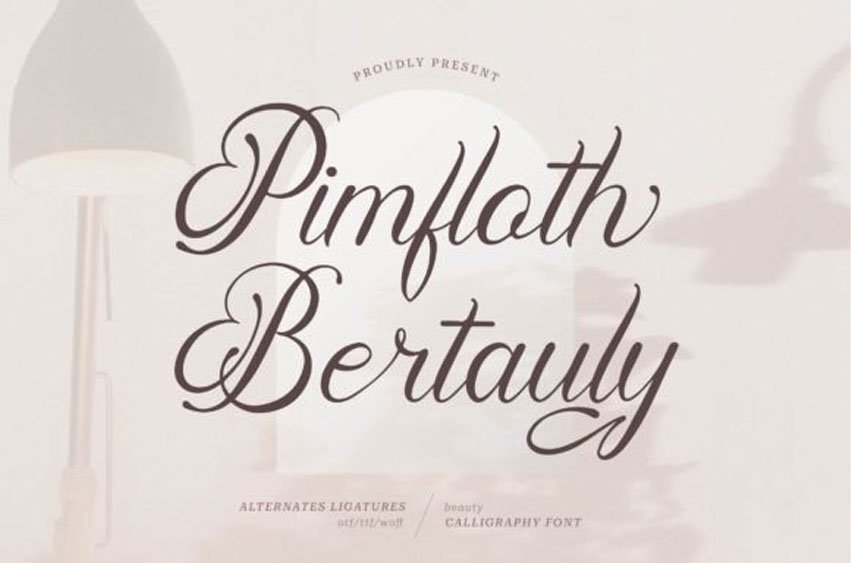
Pimfloth Bartauly Font is a dainty and elegant script font, suitable for any projects such as: logos, branding projects, homeware designs, product packaging, mugs, quotes, posters, shopping bags, t-shirts, book covers, name card, invitation cards, greeting cards, label, photography, watermark, special events, and all your other lovely projects that need a beautiful script taste.